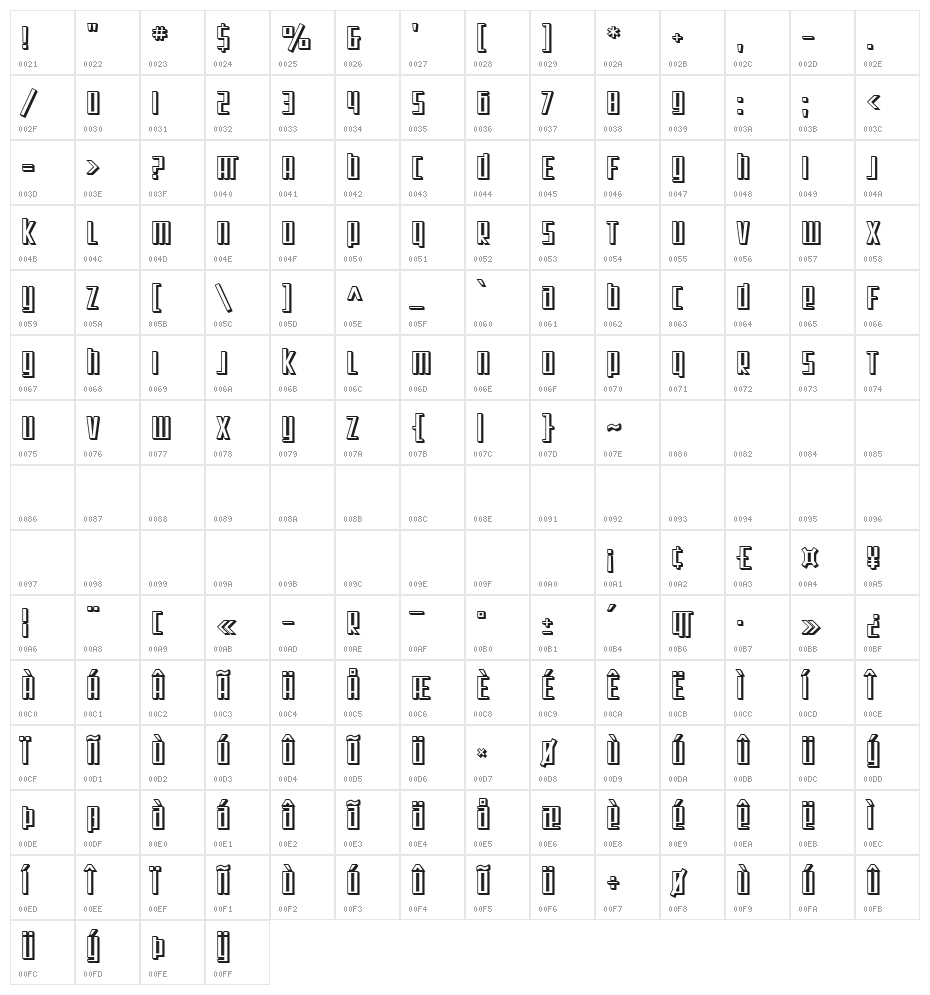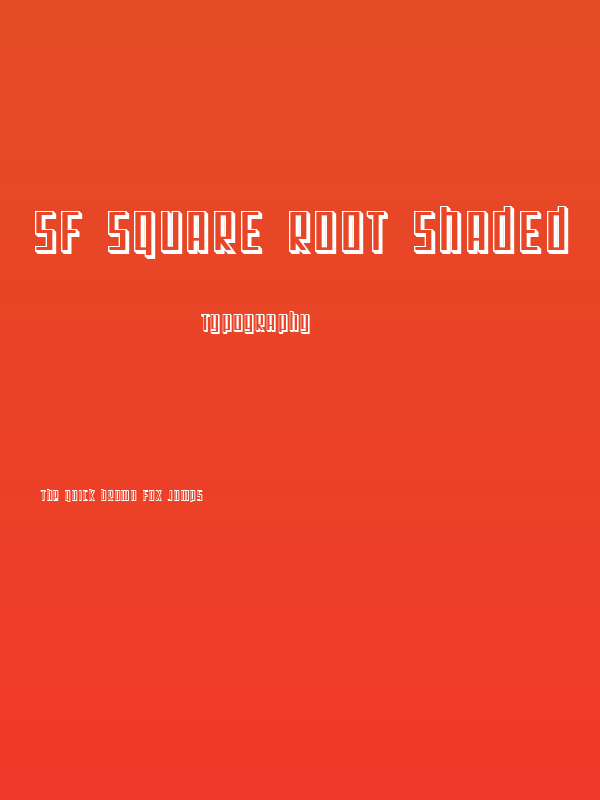
SF Square Root Shaded Font
SF Square Root Shaded Description
This font features a bold, geometric design with a three-dimensional effect created by shaded areas, giving it a striking and modern appearance. The characters are uppercase and lowercase letters, numbers, and a variety of special symbols. Each character has a blocky, angular shape with a consistent stroke width, contributing to its uniform and structured look. The shading adds depth, making the characters appear as if they are popping off the page. This style is reminiscent of digital or retro-futuristic aesthetics, making it ideal for projects that require a bold and eye-catching typeface.
Proposed ProjectsPerfect for digital artwork, video game graphics, posters, and branding that requires a futuristic or tech-inspired look.